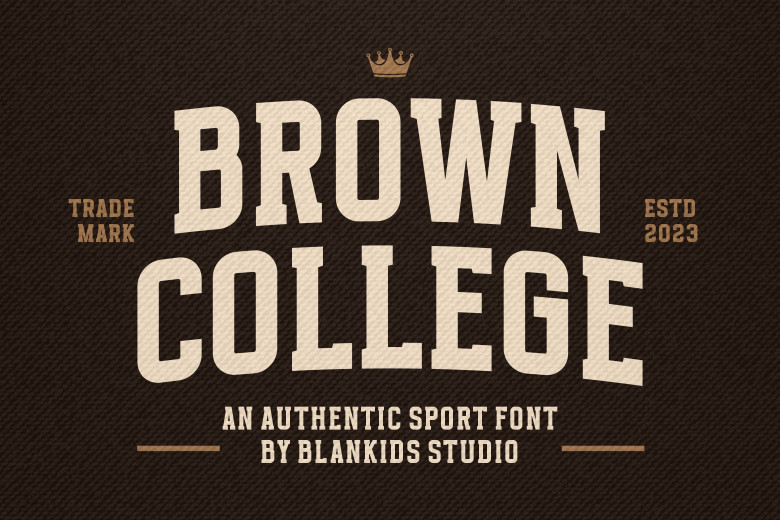
Brown College Font
Brown College is an authentic slab serif sport display font inspired by typography from colleges. This font can add fun and attractive designs, perfect for posters, book covers packing products or logotypes – creating designs with this font is truly rewarding! It also creates great levels of aesthetics which makes this font perfect for posters as well.
Brown College Slab Serif Font